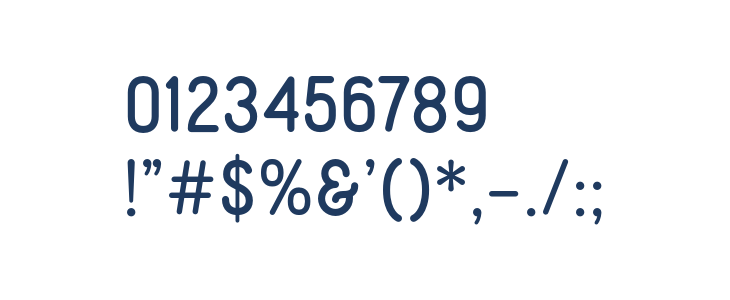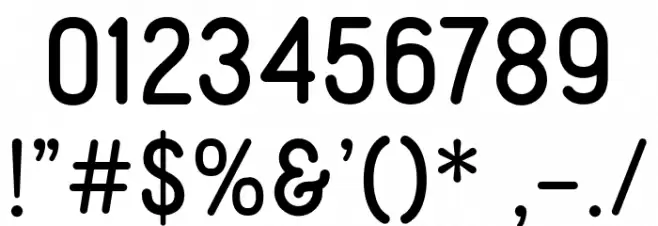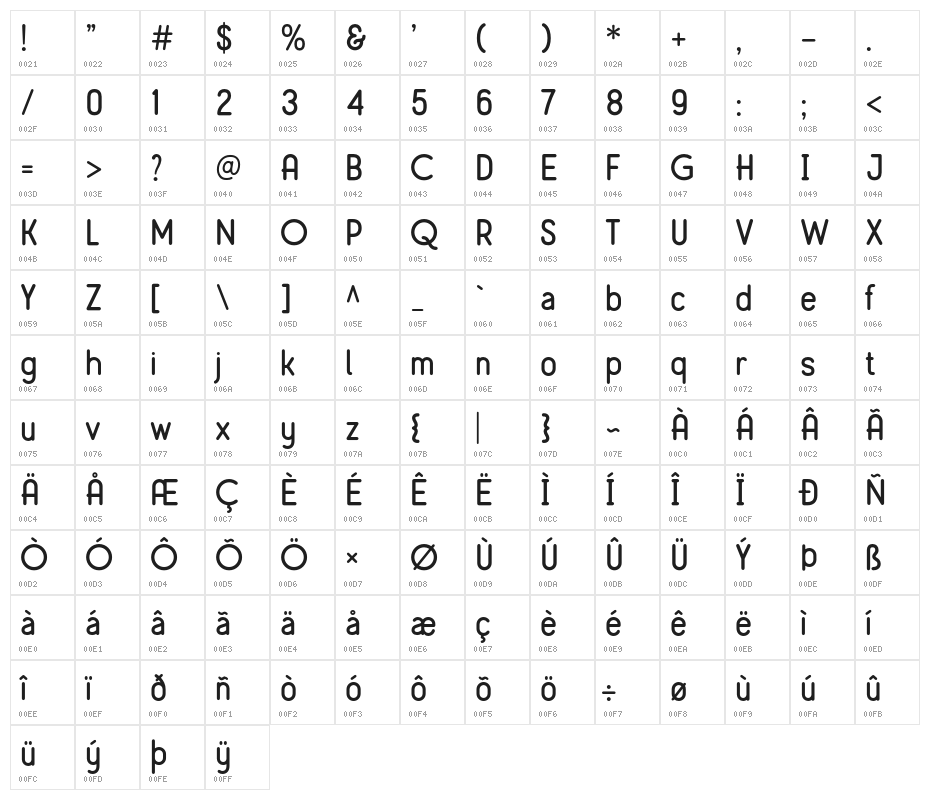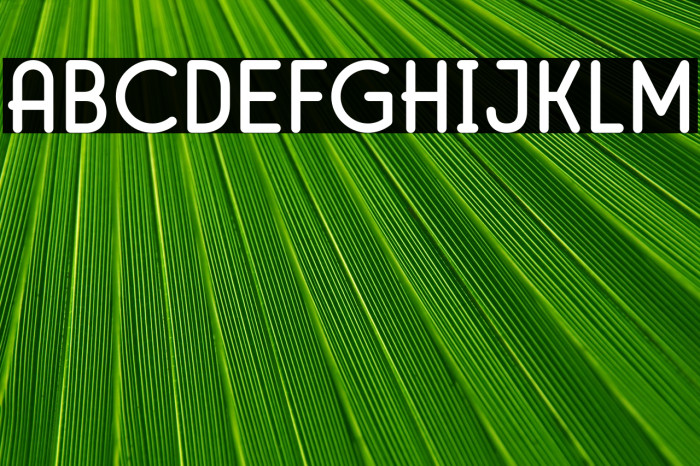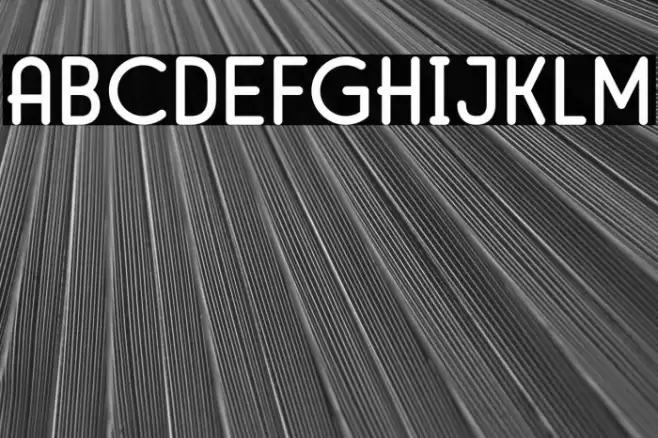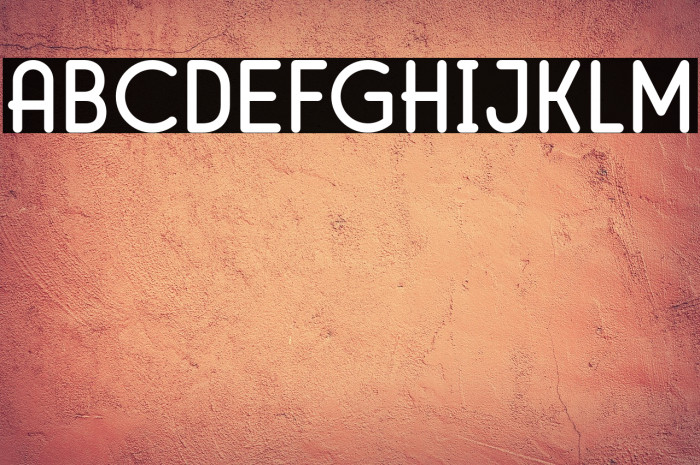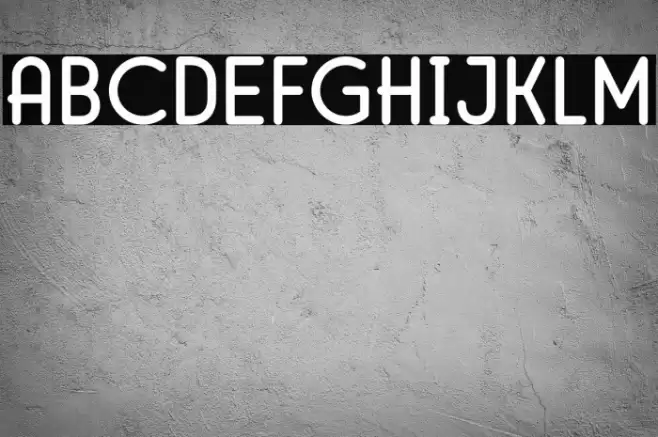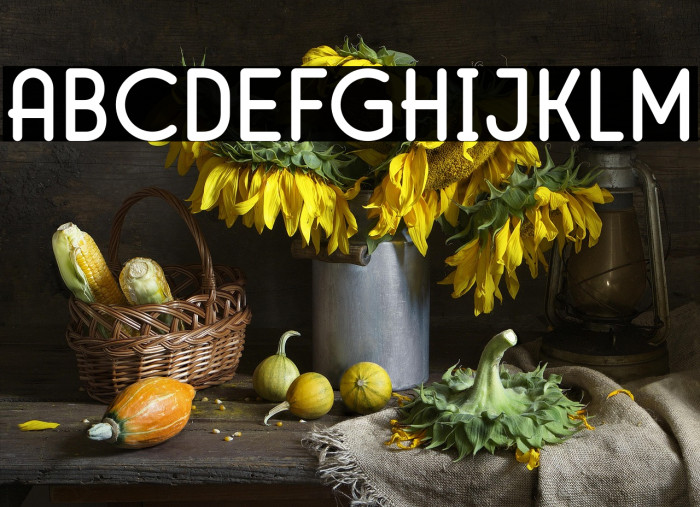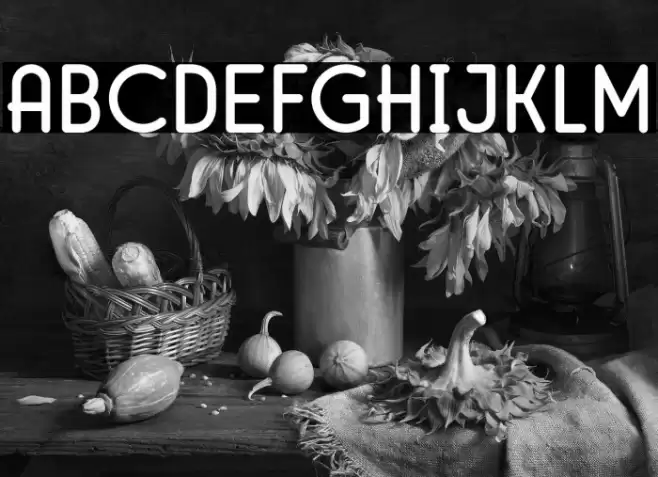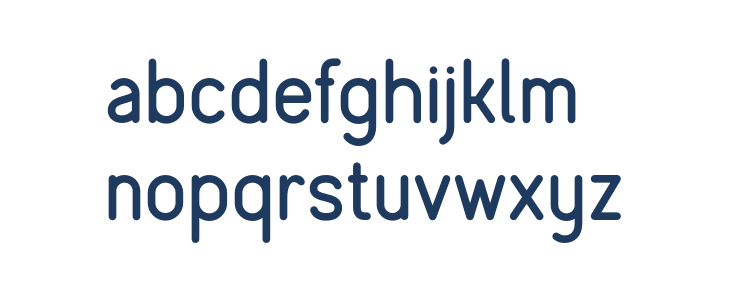
MirandahNormal Font
MirandahNormal Description
This font features a clean and modern sans-serif style with rounded edges, giving it a friendly and approachable appearance. The characters are evenly spaced, contributing to its readability and versatility. The uppercase and lowercase letters maintain a consistent height, while the numerals are clear and distinct. Special characters are well-defined, making this font suitable for a wide range of applications. Its simplicity and clarity make it ideal for both digital and print media, ensuring legibility across various sizes and formats.
| Proposed Projects | Ideal for branding, web design, user interfaces, and educational materials. |